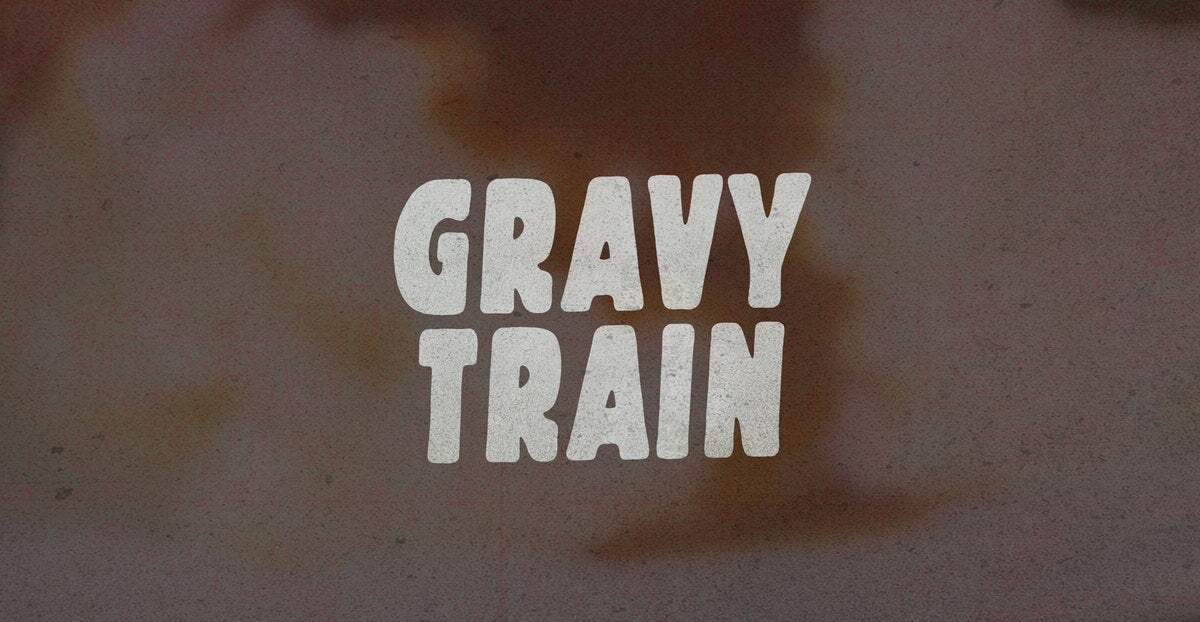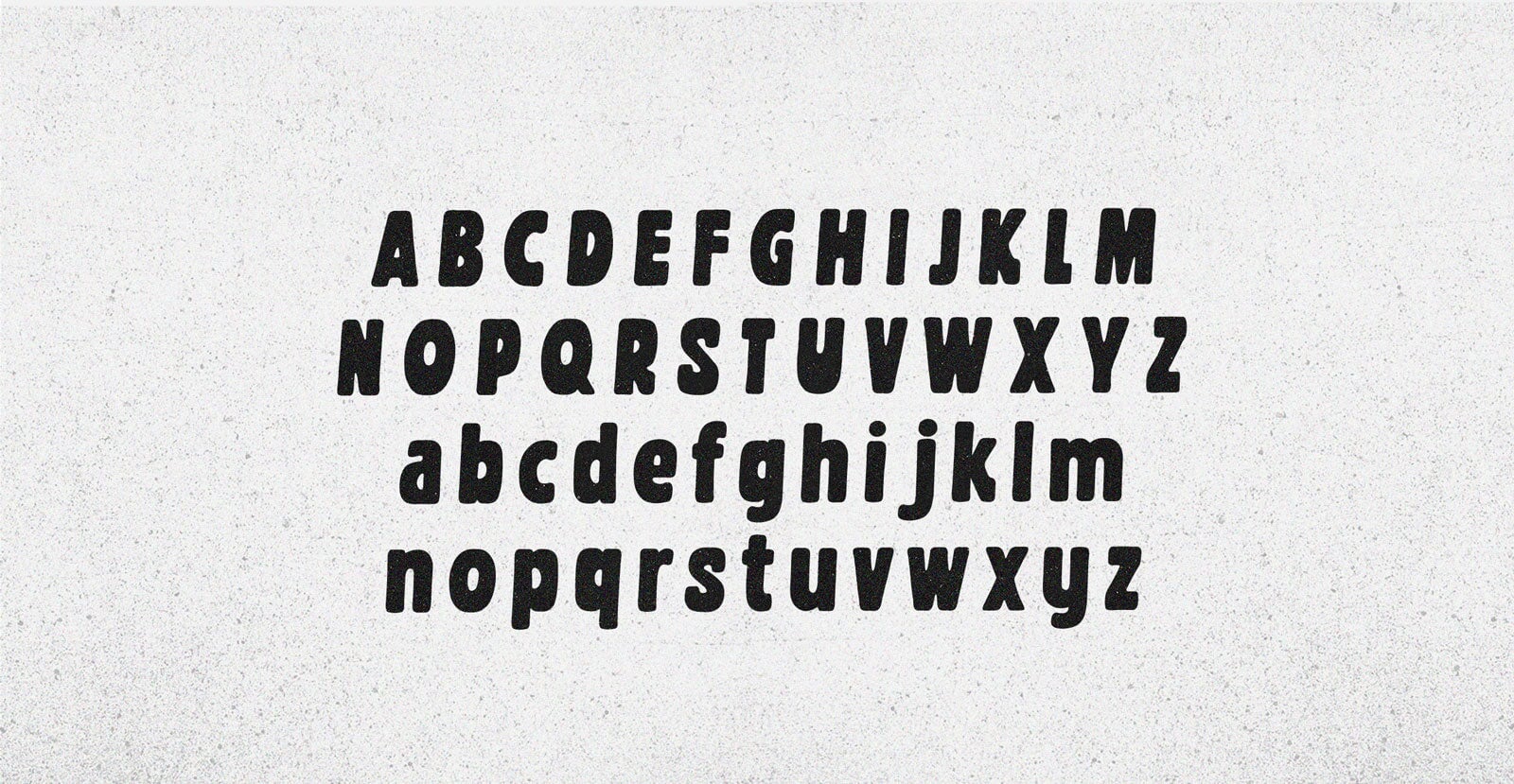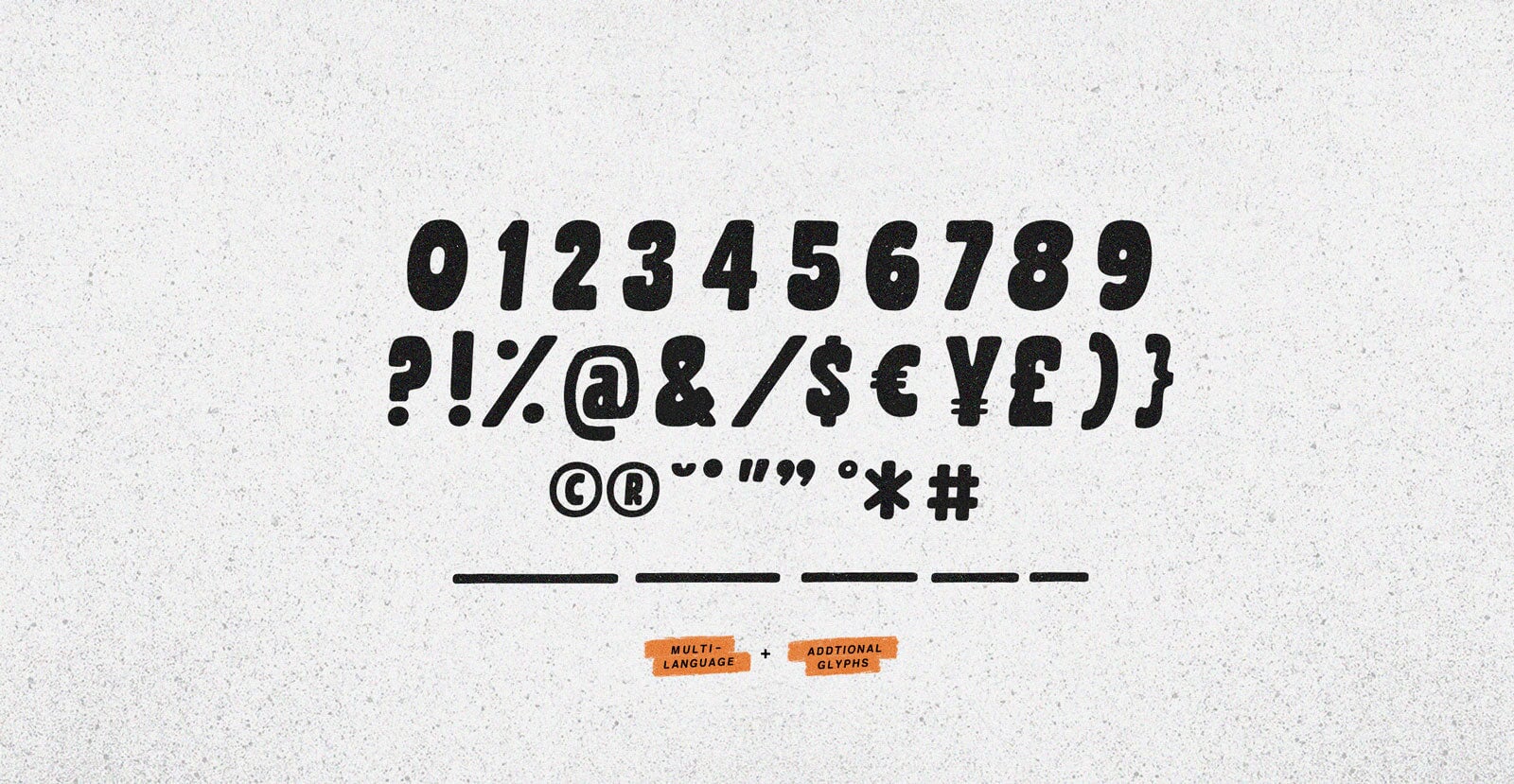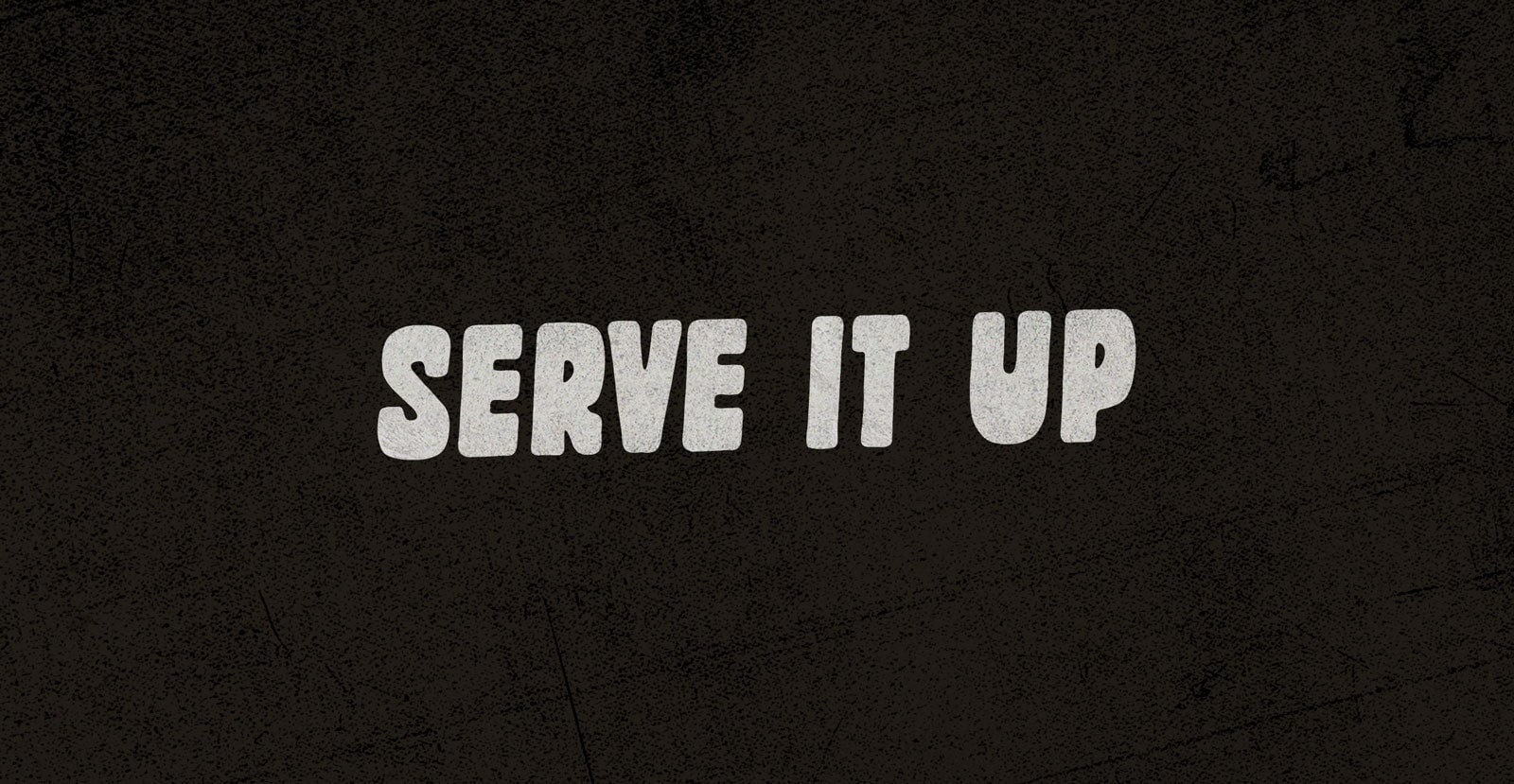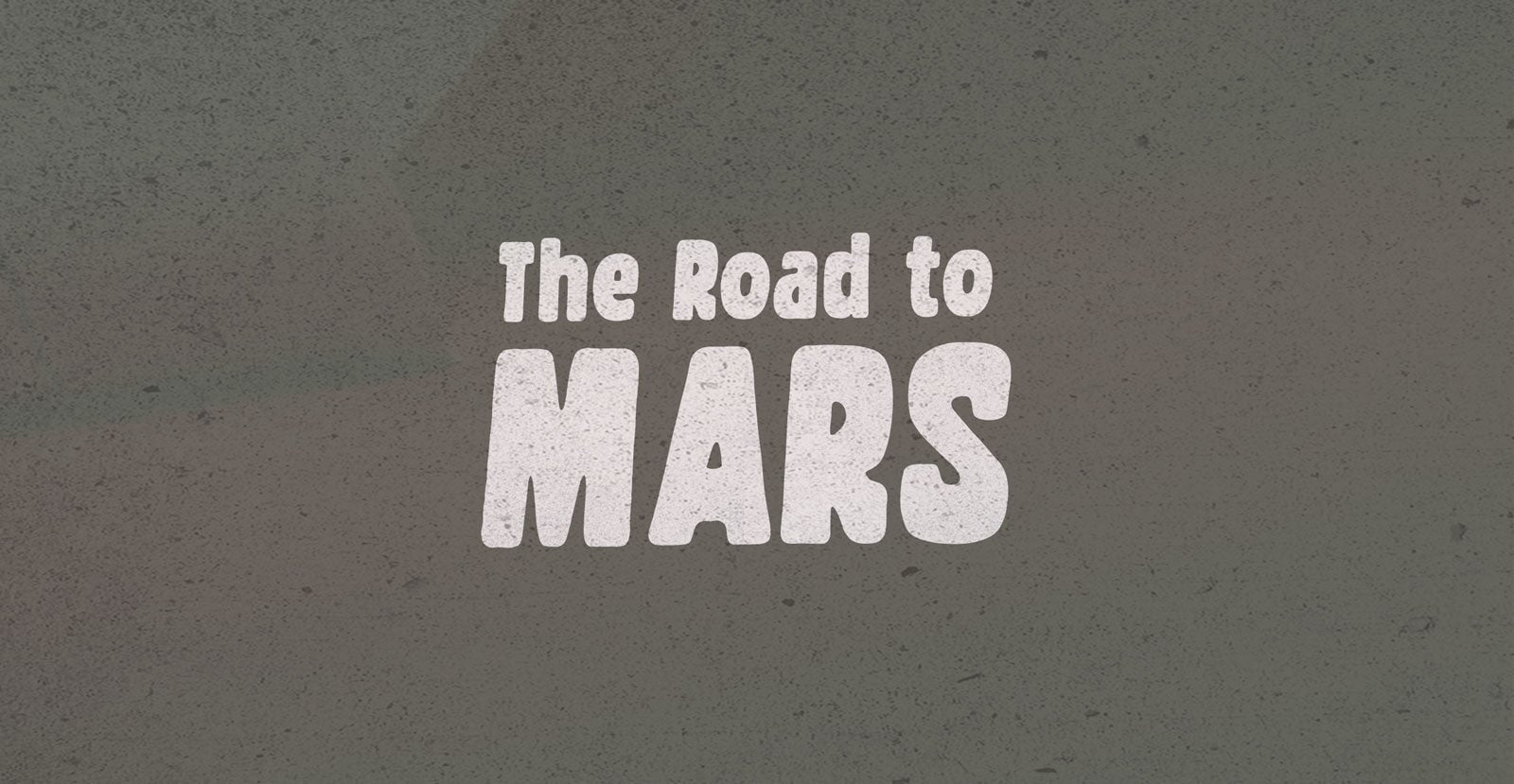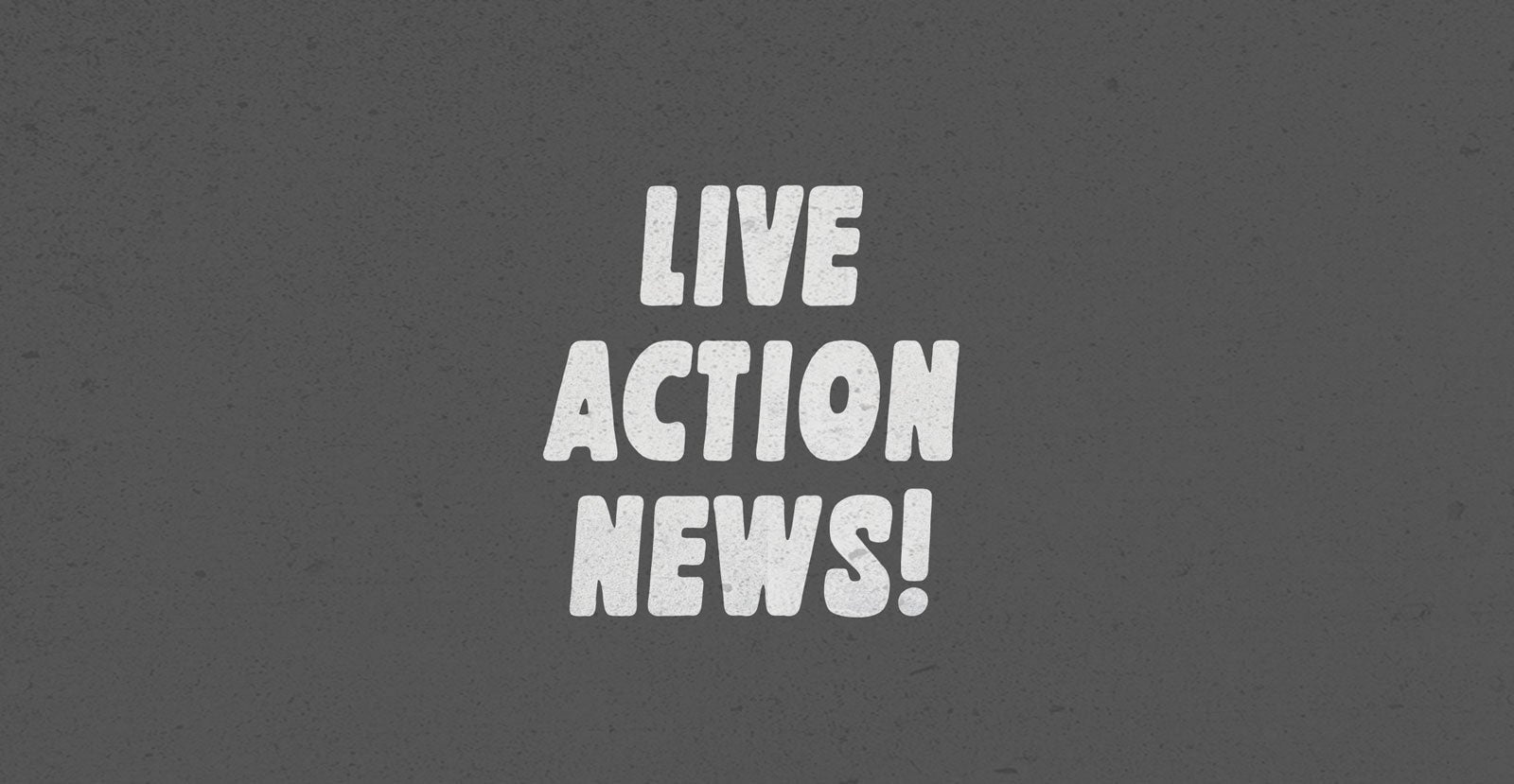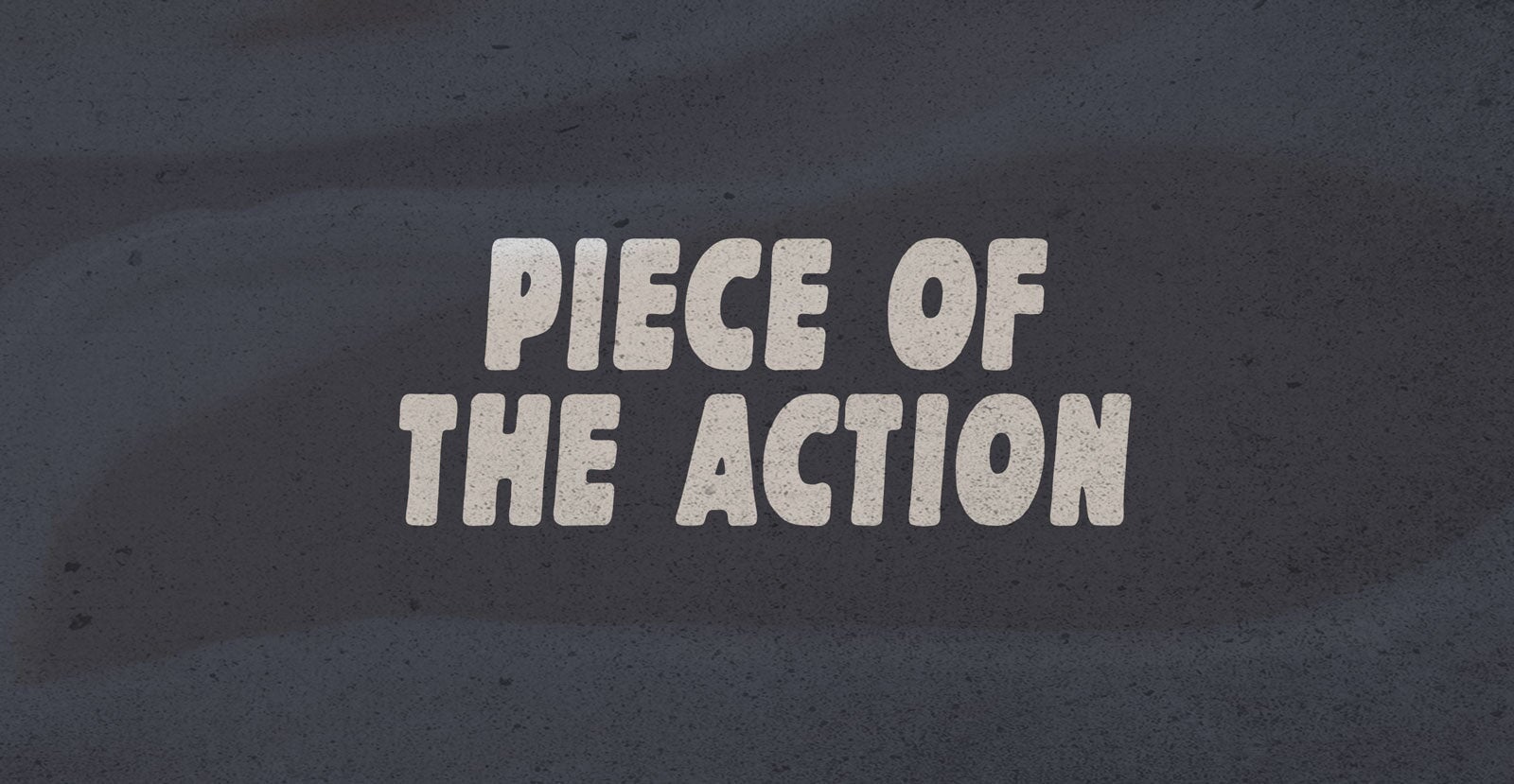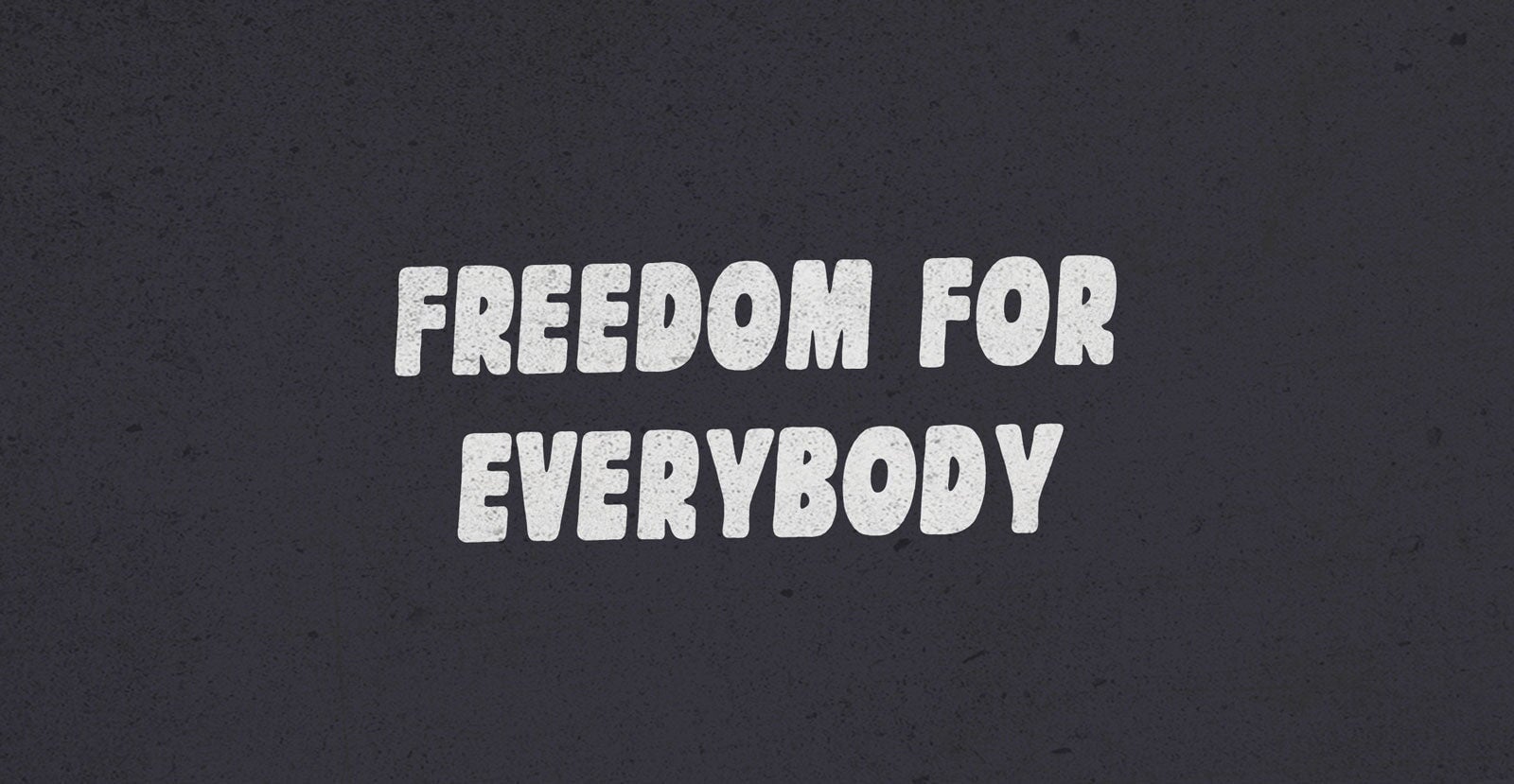
Gravy Train
Handwritten Sans Serif Font
Crossing arms across easy street: chugga chugga chew chew—here comes the Gravy Train—can’t eat what you can’t spill. Little Piggy had a bone to pick clean of tasteless hints of subtleties. Stopped in his tracks, got it broken down: reap the right of way right away.